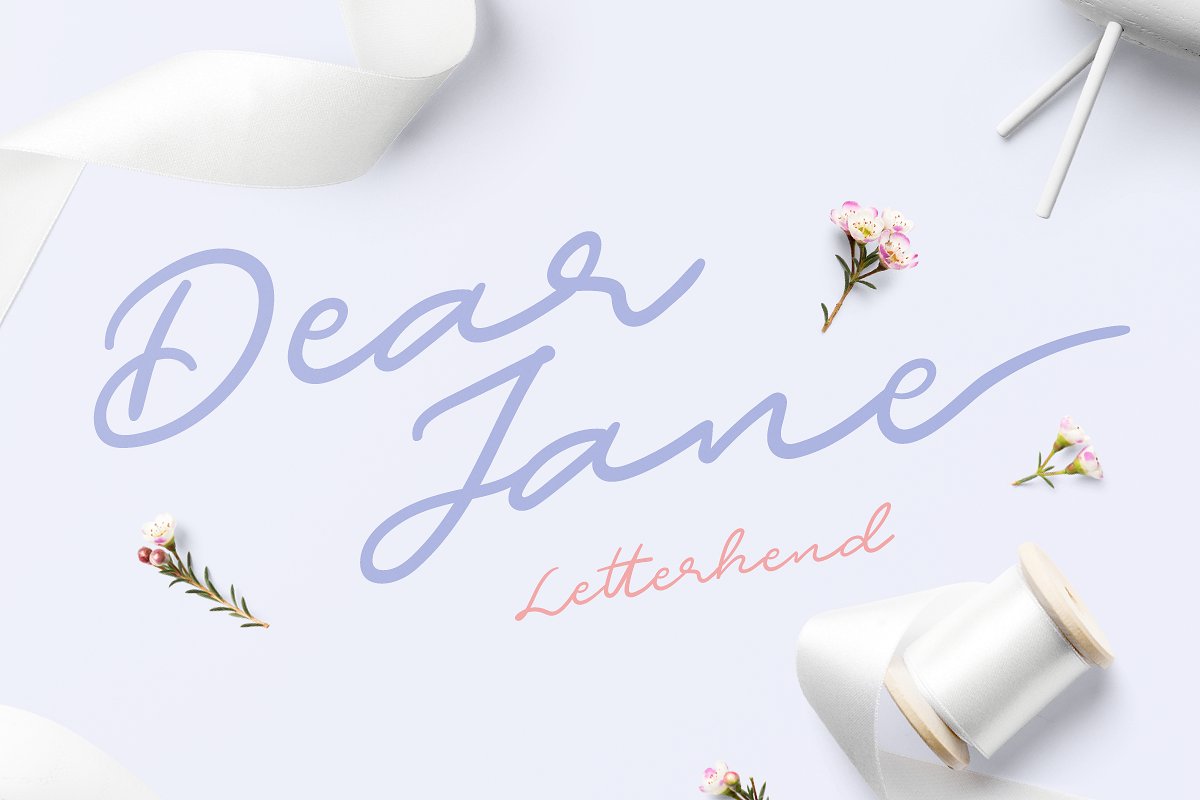
Dear Jane Font
Perfect for wedding stationery, elegant logos, branding materials, greeting cards, and social media visuals.
The Dear Jane Font excites designers with its sophisticated script style, graceful curves, and refined character shapes that bring timeless beauty to any design.
The Dear Jane Font Free Download is a luxurious script typeface designed to blend classic calligraphy charm with modern usability. Its flowing strokes and stylish ligatures make it an excellent choice for high-end branding, signature logos, and romantic-themed designs.
One of the key strengths of Dear Jane Font is its versatility—it can appear formal and elegant in wedding invitations while also feeling chic and fashionable in lifestyle branding.
In branding, Dear Jane communicates elegance, romance, and sophistication. It pairs beautifully with gold accents, soft color palettes, and minimal layouts, making it perfect for upscale product packaging and personal branding.
For digital projects, this font adds a refined touch to social media posts, blog graphics, and website headers, ensuring your message feels both stylish and memorable.